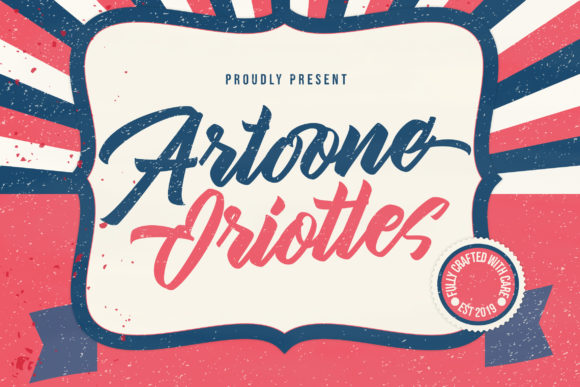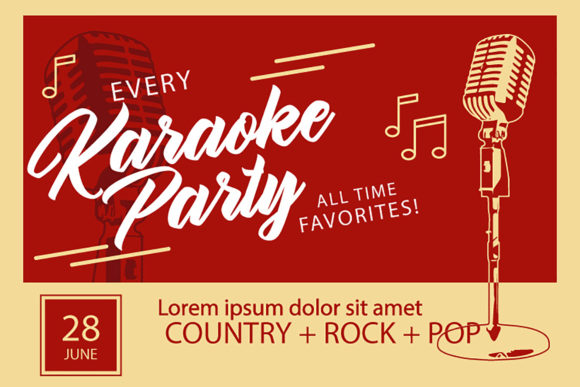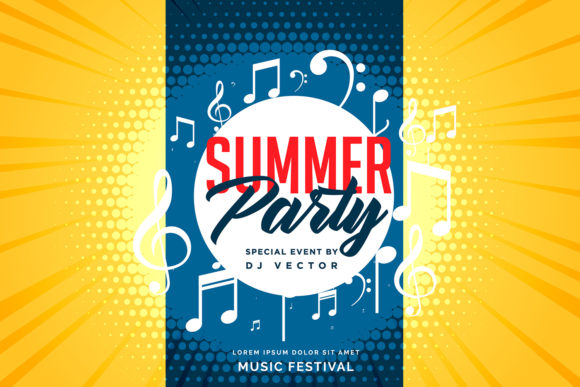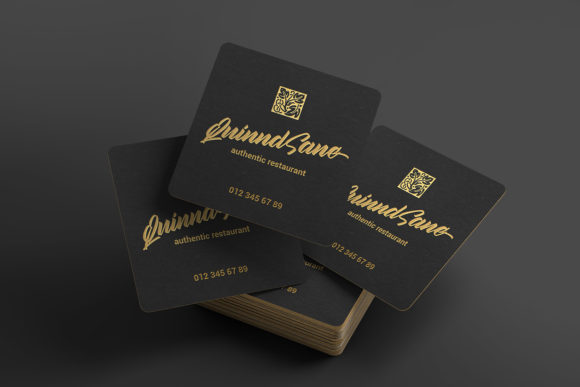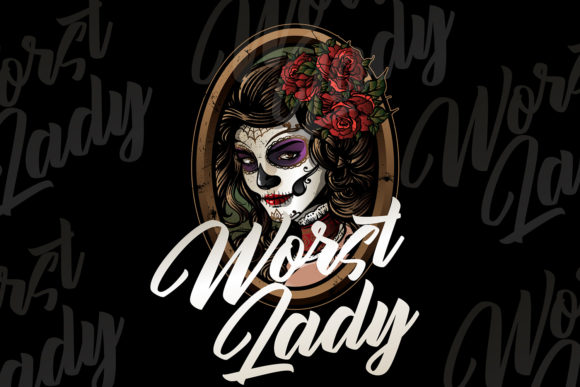
Artoone Oriottes Font
Artoone Oriottes is a charming script font with vintage style. Use it for any design project that requires a personalized appearance!